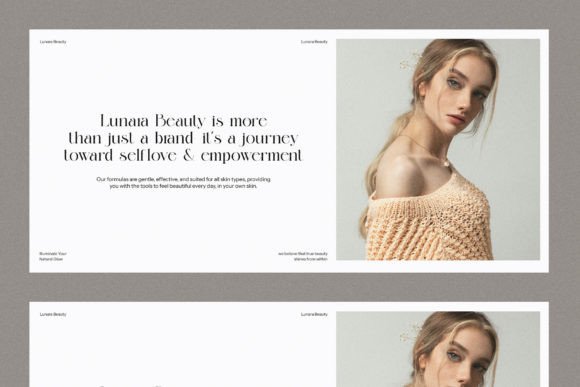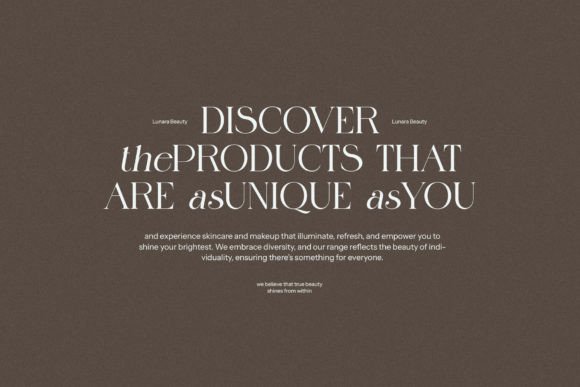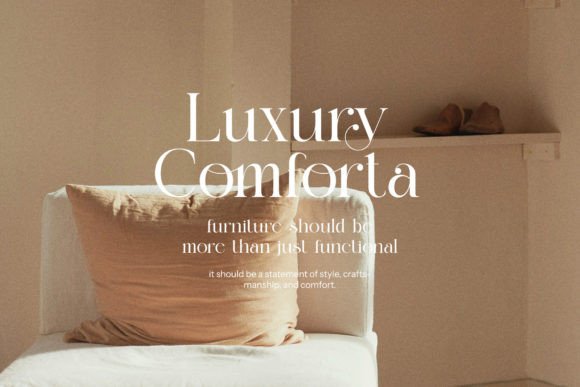
Introduction to Migllon Font
Have you ever stumbled upon the perfect font while working on a creative project, only to realize it’s no longer available for download? This frustration is a common experience for designers, but what if I told you there’s a stunning serif font that’s both elegant and free to download?
Meet the Migllon Font, a high-quality design resource that’s perfect for adding a touch of sophistication to your work. With its smooth, flowing letters and stylish curves, this font is sure to elevate your creative project and make it stand out from the crowd.
Whether you’re designing a logo, invitation, or heading, the Migllon Font is a valuable addition to your design toolkit. Its transparent background and seamless ligatures make it a versatile choice for any creative endeavor.
Key Features of Migllon Font
- High-quality design resource ideal for creative projects, offering a unique and elegant touch.
- Features a transparent background, allowing for easy customization and versatility in your design projects.
- Includes a range of characters, including uppercase and lowercase letters, numbers, and special symbols, making it a comprehensive design resource.
- Designed with a focus on readability and aesthetics, making it perfect for use in a variety of creative contexts, from digital design to print materials.
Honest Review: Migllon Font
I recently stumbled upon the Migllon Font, a free download that’s been making waves in the design community. As a designer, I was excited to dive in and see what all the fuss is about.
- ✨ High quality: The Migllon Font boasts crisp, clean lines and a sleek design that’s perfect for any creative project.
- ✨ Transparent background: The font’s transparent background makes it easy to layer and combine with other design elements.
- ✨ Versatile: Whether you’re working on a logo, brochure, or website, the Migllon Font is a great addition to your design resource.
- ⚠️ Limited character set: The Migllon Font’s character set is somewhat limited, which may not be ideal for longer blocks of text.
- ⚠️ Not suitable for print: While the font looks great on screen, it may not be the best choice for print materials due to its digital origins.
Overall, I’m impressed with the Migllon Font. While it may not be perfect, it’s a great addition to any designer’s toolkit. With a little creativity, you can use it to create some truly amazing designs. I’d definitely recommend giving it a try, especially if you’re working on a free project or need a high-quality font on a budget.
Migllon Font
Tips for Getting the Most Out of Migllon Font
Here are a few tips for getting the most out of the Migllon Font:
- Use it with a transparent background for a clean and modern look.
- Combine it with other design elements, such as icons and graphics, for a unique and creative look.
- Experiment with different font sizes and styles to find the perfect fit for your project.
The Migllon Font is perfect for a variety of creative projects, including:
- Graphic design projects
- Branding and marketing materials
- Web design projects
Alternatives to Migllon Font
The Great Vibes Font is a beautiful, high-quality script font perfect for creative projects that require a touch of elegance. It’s ideal for use in invitations, branding, and other design elements where a unique, handwritten look is desired. With its transparent background, this font is easy to use and customize in any design application.
Compared to Migllon Font, Great Vibes Font offers a more refined, sophisticated look that’s perfect for high-end designs. While Migllon Font has a more playful, cursive feel, Great Vibes Font is ideal for projects that require a more polished, professional appearance.
Can I use the Migllon Font with a transparent background?
Yes, the Migllon Font is designed to work seamlessly with a transparent background, making it perfect for use in digital design, graphics, and other creative projects where a subtle typography is required.